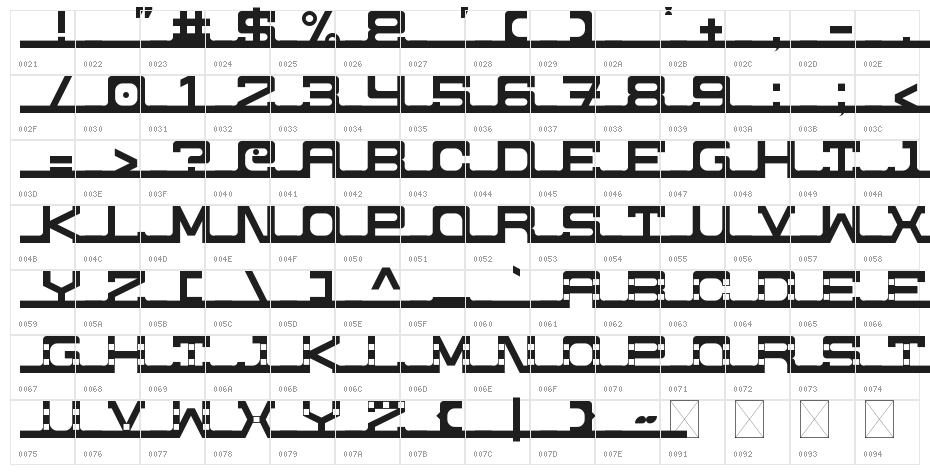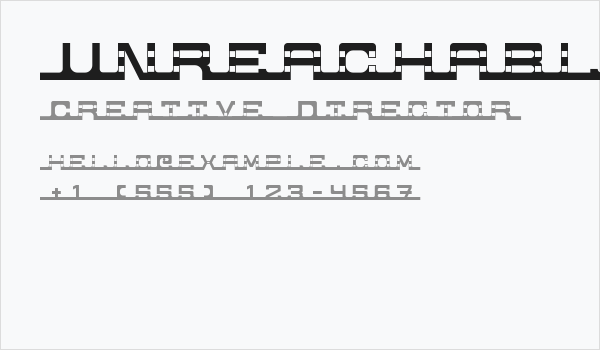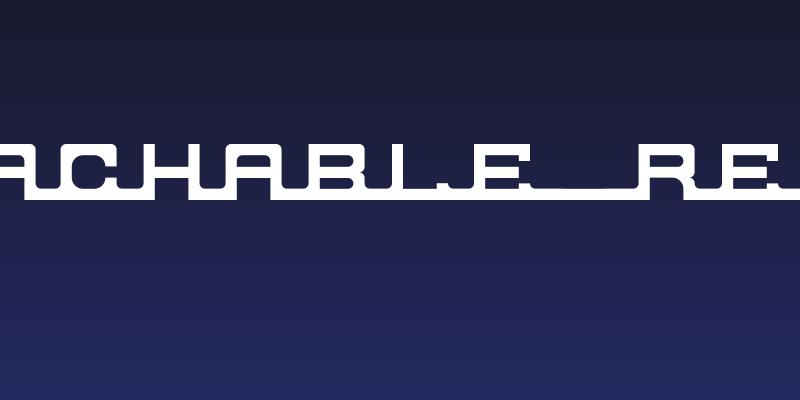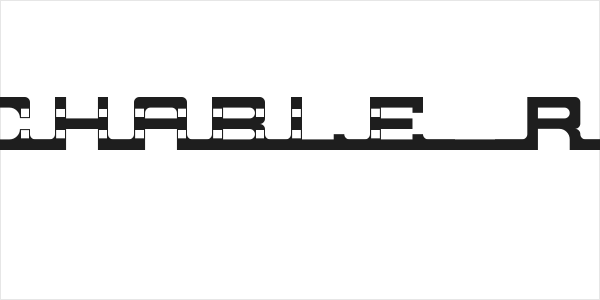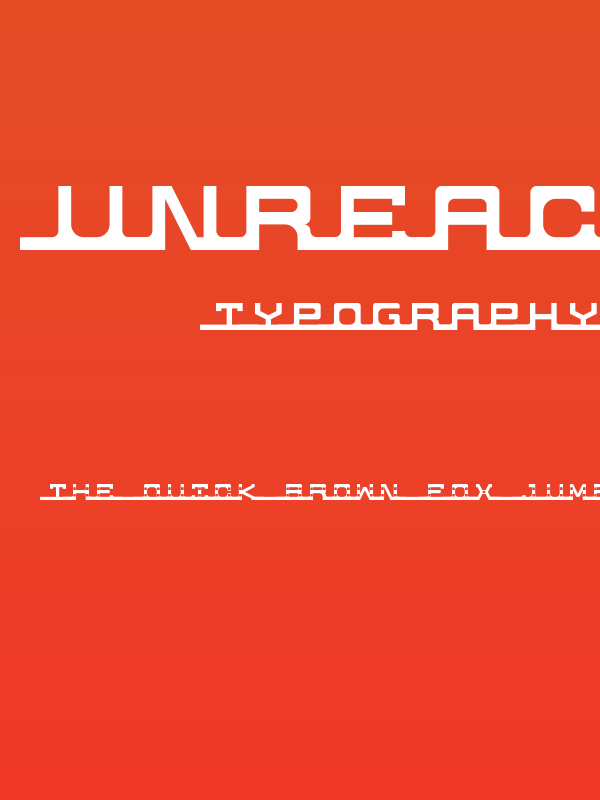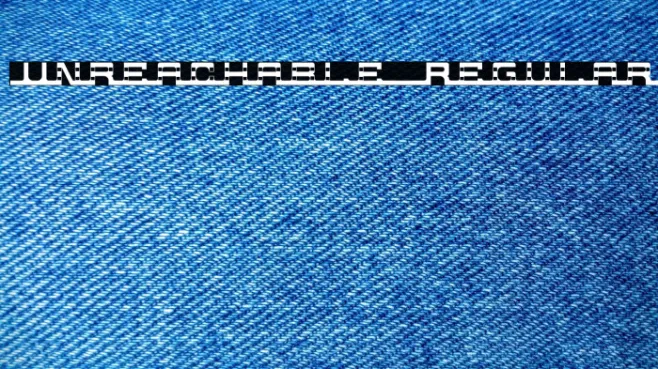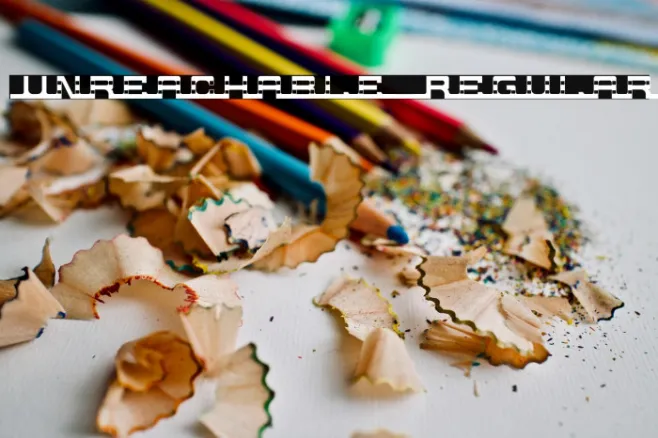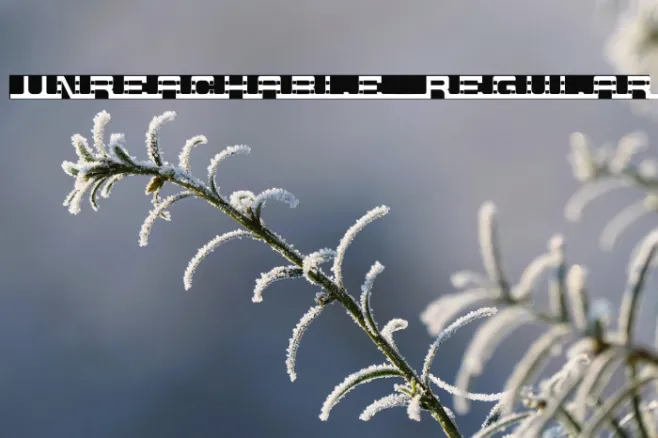
Unreachable Regular Font
Unreachable Regular Description
This font features a futuristic and geometric design with a unique, interconnected style. The characters are constructed with a combination of solid and outlined segments, creating a dynamic and visually striking appearance. The uppercase and lowercase letters maintain a consistent height, contributing to a uniform look. The numerals and special characters follow the same design principles, ensuring cohesion across all glyphs. The font's bold and structured form makes it ideal for projects that require a modern and tech-inspired aesthetic.
| Proposed Projects | Ideal for technology branding, sci-fi posters, video game titles, and digital interfaces. |